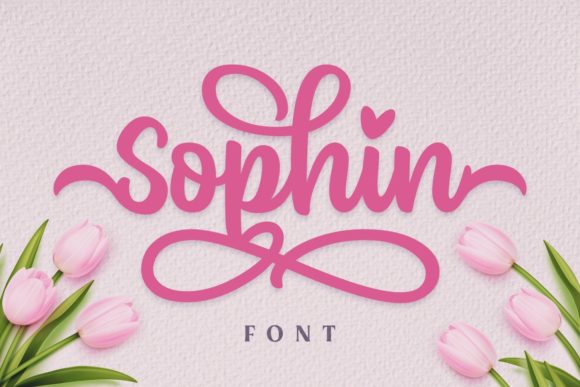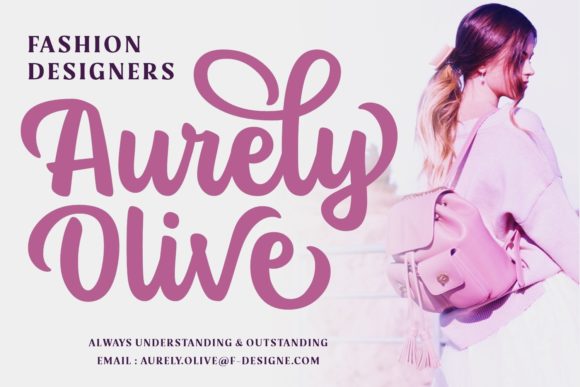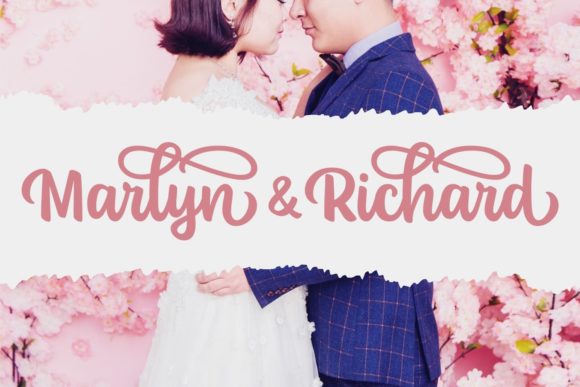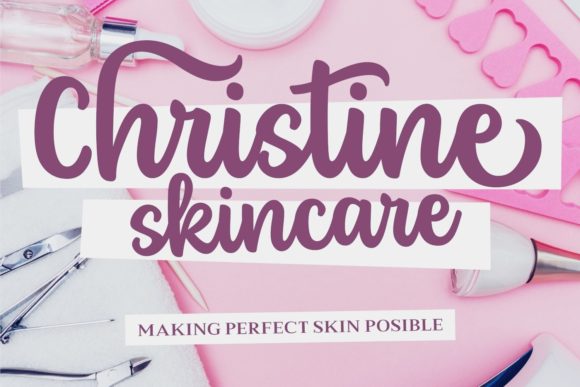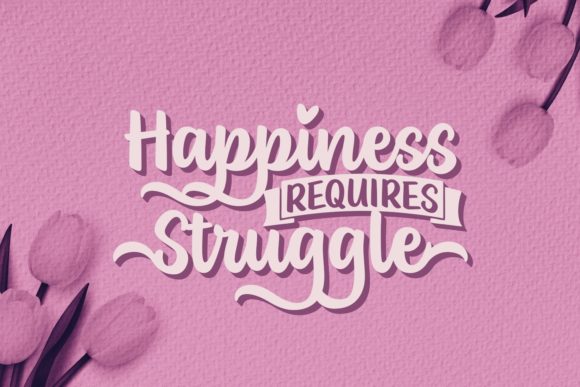
Sophin Font
About Sophin Font
Sophin is a stylish and incredibly elegant script font. It looks stunning on wedding invitations, thank you cards, quotes, greeting cards, logos, business cards. Sophin is PUA encoded which means you can access all of the glyphs and swashes with ease!